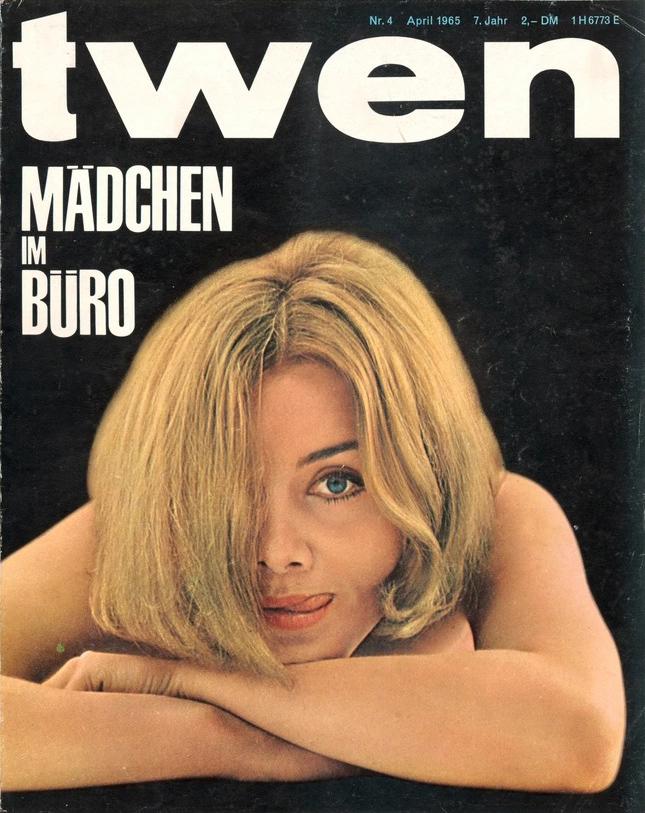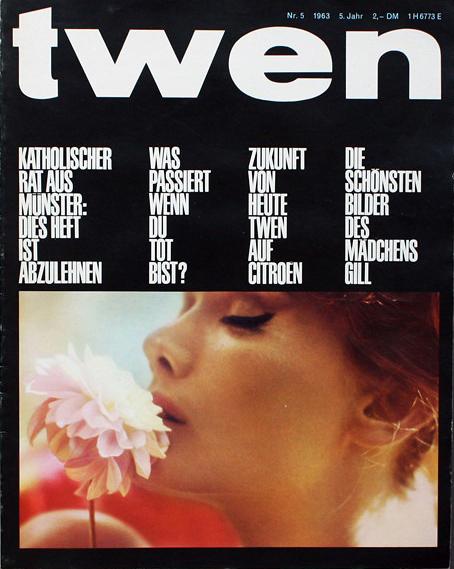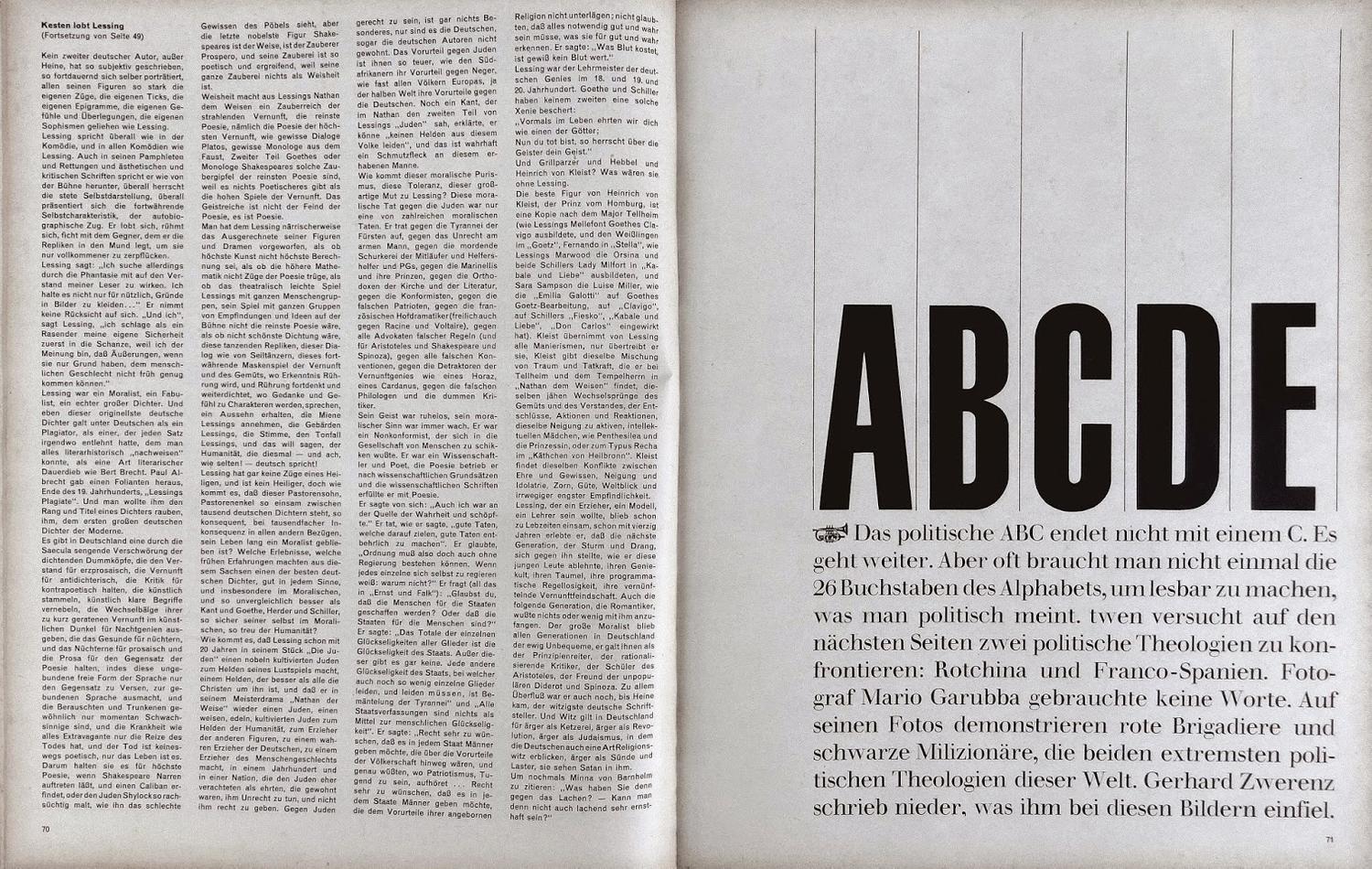
Velo
Velo takes its name and spirit from the bold, uncompromising lettering of 60s and 70s editorial design and early cycling posters, where space was precious and impact was everything.
Compressed grotesques from the late 1800s solved a practical problem – fitting maximum message into minimum width – but their dense, geometric forms also possessed a graphic power that later generations would fully exploit. Most notably, Willy Fleckhaus transformed Schmalfette Grotesk (Walter Haettenschweiler, 1954) into a defining element of Twen magazine's radical layouts from 1959 to 1971, setting bold type white-on-black against graphic photography that redefined editorial design.
Velo builds on this tradition with intentionally minimal optical correction at stroke intersections, creating a modular, mechanical quality that feels both engineered and expressive. The typeface is distinguished by its circular 'O' forms that exaggerate the compressed proportions, along with a set of delicate hairline symbols that provide textural contrast.
Source Material
Willy Fleckhaus’ Twen magazine